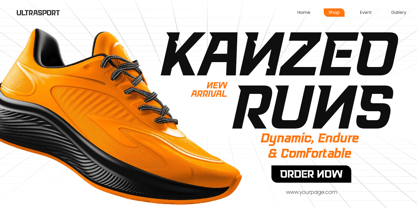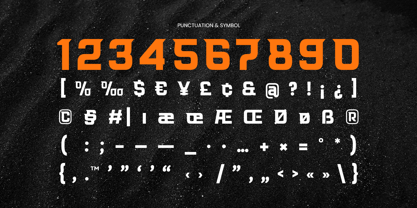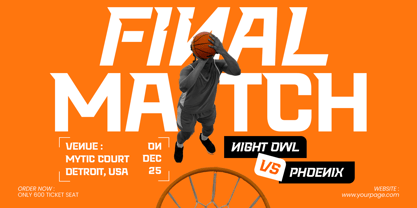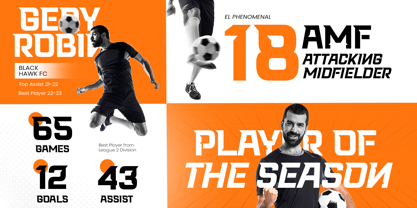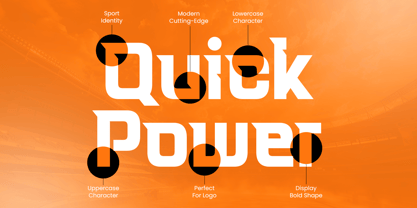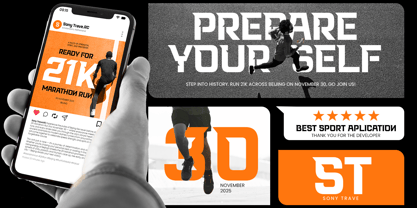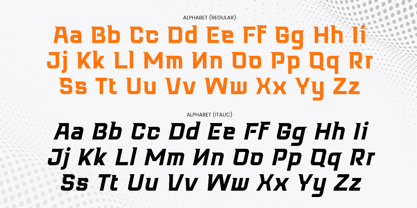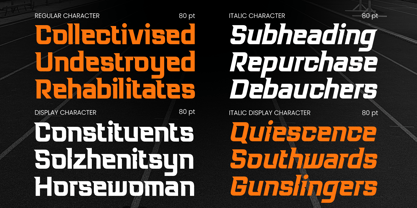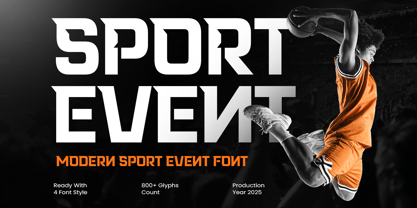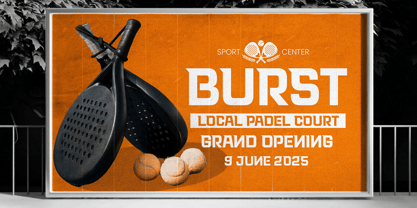
SPORT EVENT is a modern sport event font built to capture energy, strength, and competitive spirit. With bold strokes, sharp angles, and confident proportions, this typeface delivers an impactful athletic look that feels fast, strong, and performance-driven.
Designed for sports branding, tournaments, fitness brands, and large-scale events, SPORT EVENT works perfectly for logos, jerseys, posters, scoreboards, social media graphics, and promotional materials. Its commanding presence ensures high visibility in both digital and print environments.
Whether you’re designing for football, basketball, motorsport, esports, or fitness campaigns, SPORT EVENT brings intensity and clarity to every layout—making it an essential font for modern sports communication.
SPORT EVENT – Modern Sport Event Font Features
Bold and dynamic letterforms with athletic character
Ready with Regular, Italic, Display, Display-Italic Version
Designed for sports events, teams, and competitive branding
Strong visual impact for headlines, posters, and signage
Ideal for logos, jerseys, banners, and social media graphics
Includes uppercase, lowercase, numerals, and punctuation
Optimized for both digital screens and print output
OpenType features for flexible sports typography
Bring unstoppable energy to your visuals with SPORT EVENT – built for modern sports and winning moments. 🏆🔥